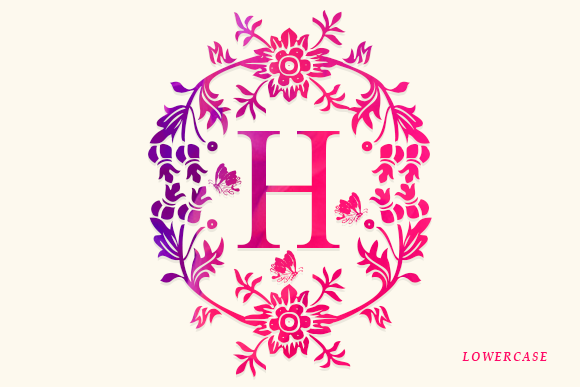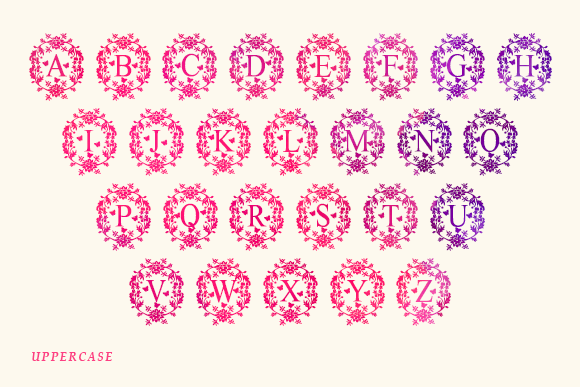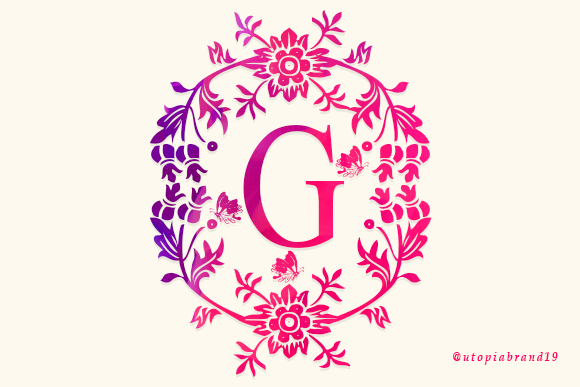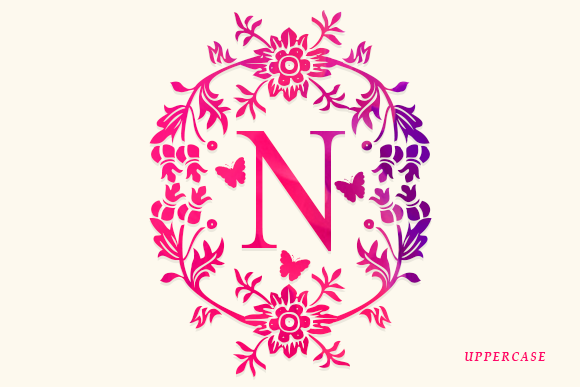
Spring Monogram Font
About the Spring Monogram Font
From logos to headlines, the Spring Monogram Font is the perfect choice for making a lasting impression. Spring Monogram is a charming decorative font. Fall in love with its authentic feel and use it to create gorgeous wedding invitations, beautiful stationary art, eye-catching social media posts, and cute greeting cards.